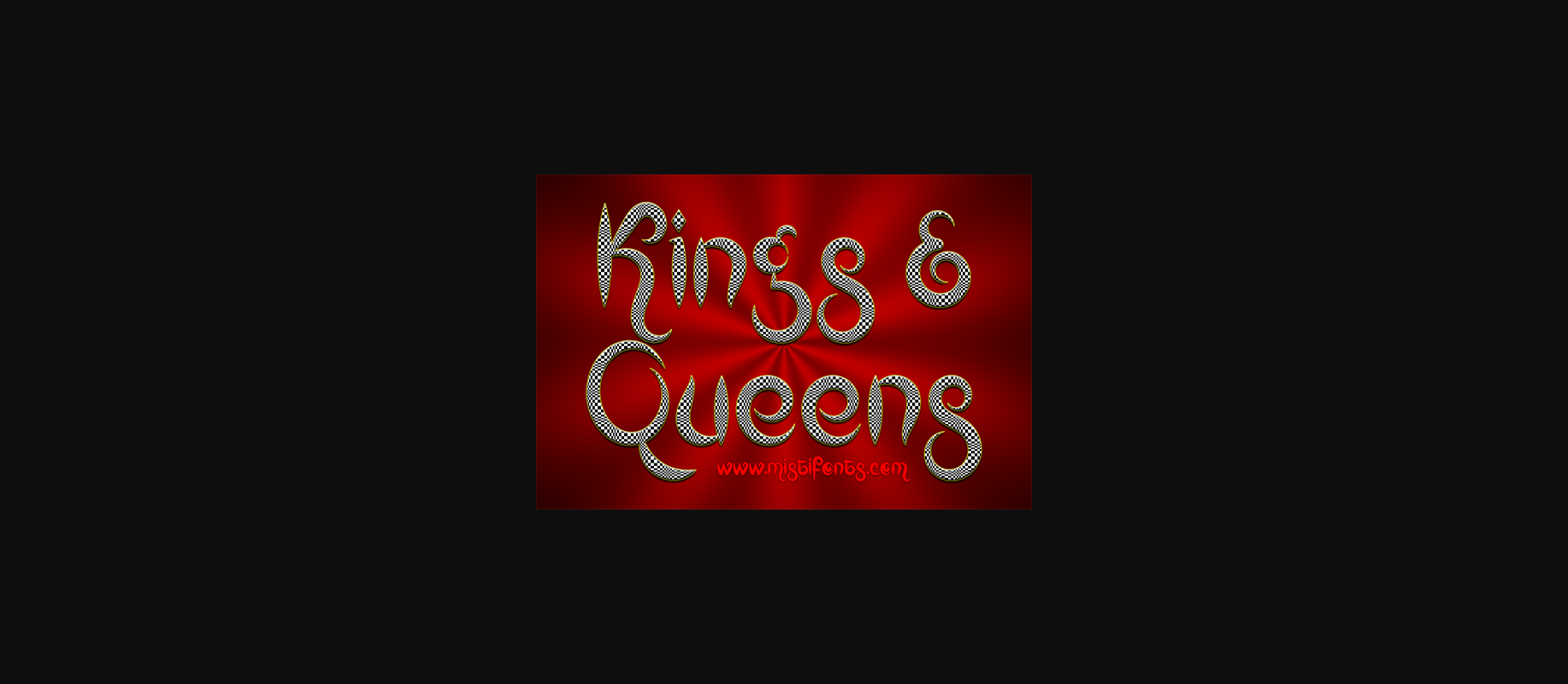
HomeDecorative FontsKings and Queens Font Decorative Fonts Kings and Queens Font FacebookXPinterestWhatsApp 1 of 1 About Kings and Queens Font Kings and Queens is a funky and unique font that is perfect for your design and craft projects! DOWNLOAD NOW People also explored Lovert Font Grinch Plus Font Melania Script Font The Laron Font Moonshine Font Super Daddy Moshi Moshi Font Heartway Font Nostalgic Script Font 255 0 TagsKings and Queens Font Previous articleDibacheh FontNext articleLove is Awesome Font LEAVE A REPLY Cancel reply Comment: Please enter your comment! Name:* Please enter your name here Email:* You have entered an incorrect email address! Please enter your email address here Website: Save my name, email, and website in this browser for the next time I comment. Personal Use Free Breakaway Personal Use Free Read more about this font Mail Ray Stuff Personal Use Free Read more about this font Beloved Script Personal Use Free Read more about this font Martani Personal Use Free Read more about this font BLOG How to Cut Any Font on Cricut: Convert a Font to SVG (Free) Turn any font into a clean SVG so it cuts crisp on Cricut - a quick 3-step workflow using a free font-to-SVG tool. Fonts That Capture the Spirit of New York City To increase your work productivity, choose the most readable fonts. Exploring Font Trends